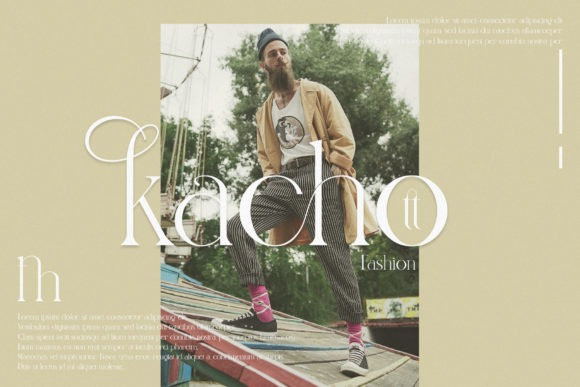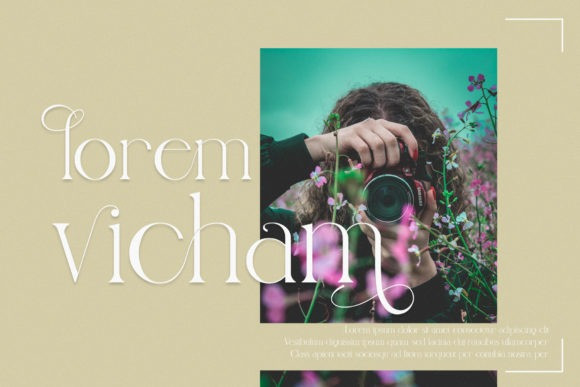
Nindea Font
Nindea is an elegant and classy serif font. It is both modern and nostalgic and works great for logos, magazines, social media and more. This font is PUA encoded which means you can access all of the glyphs and swashes with ease!